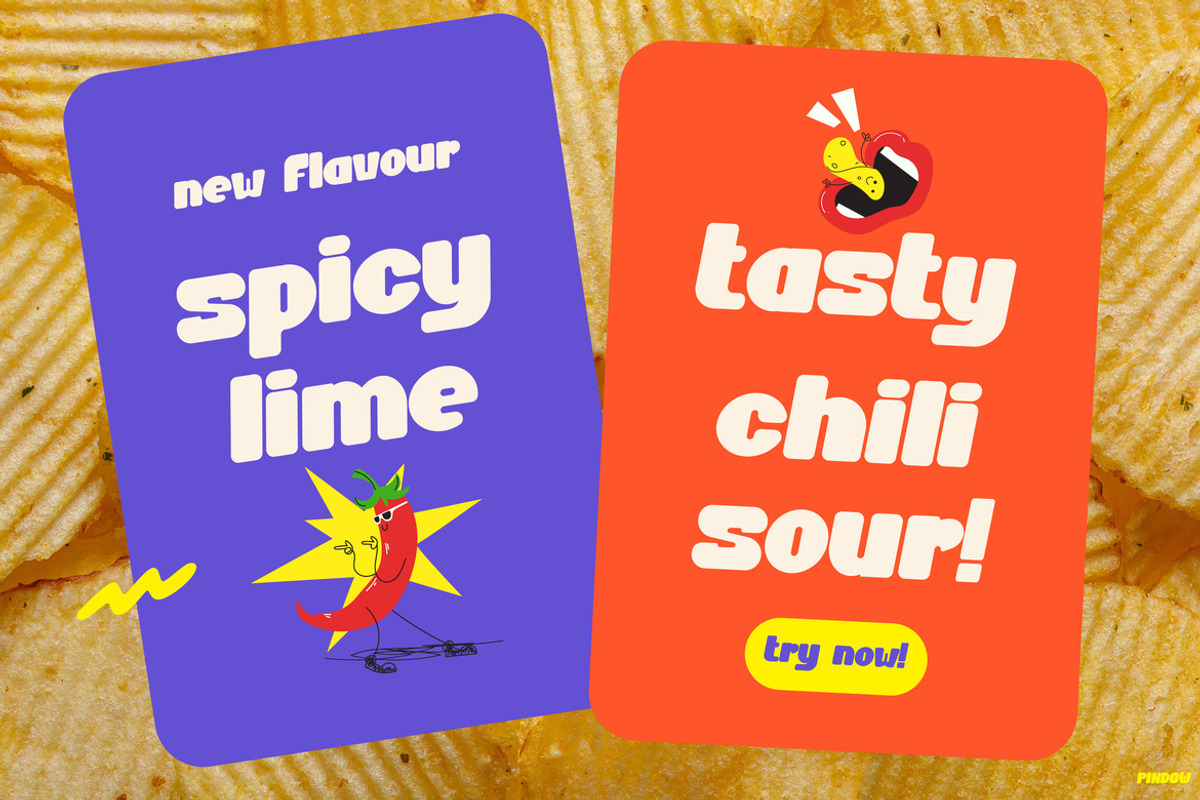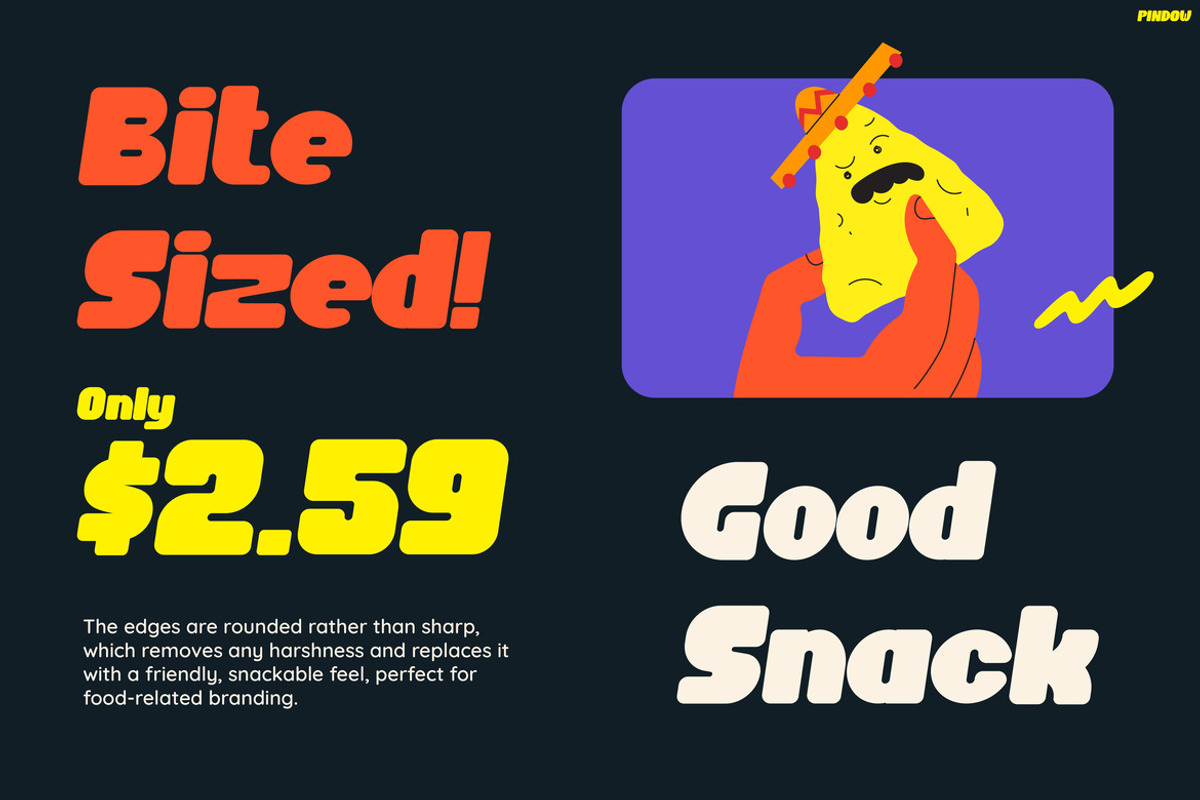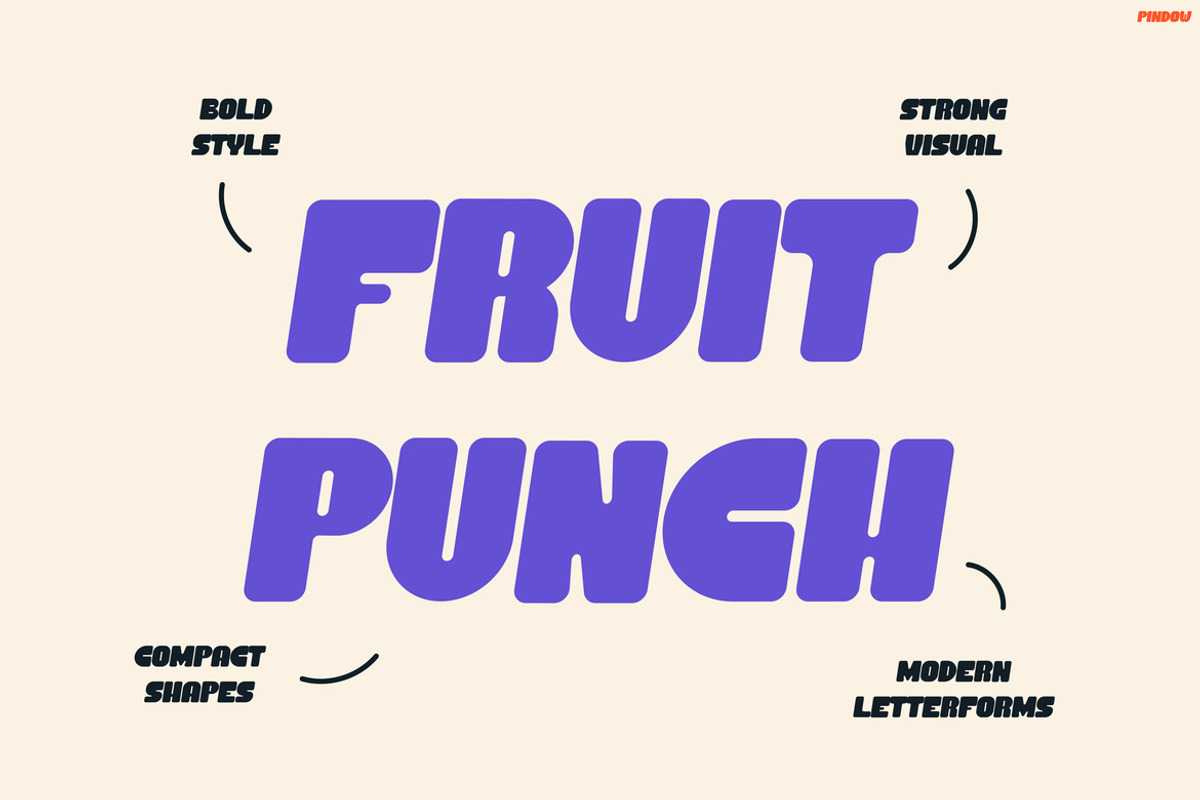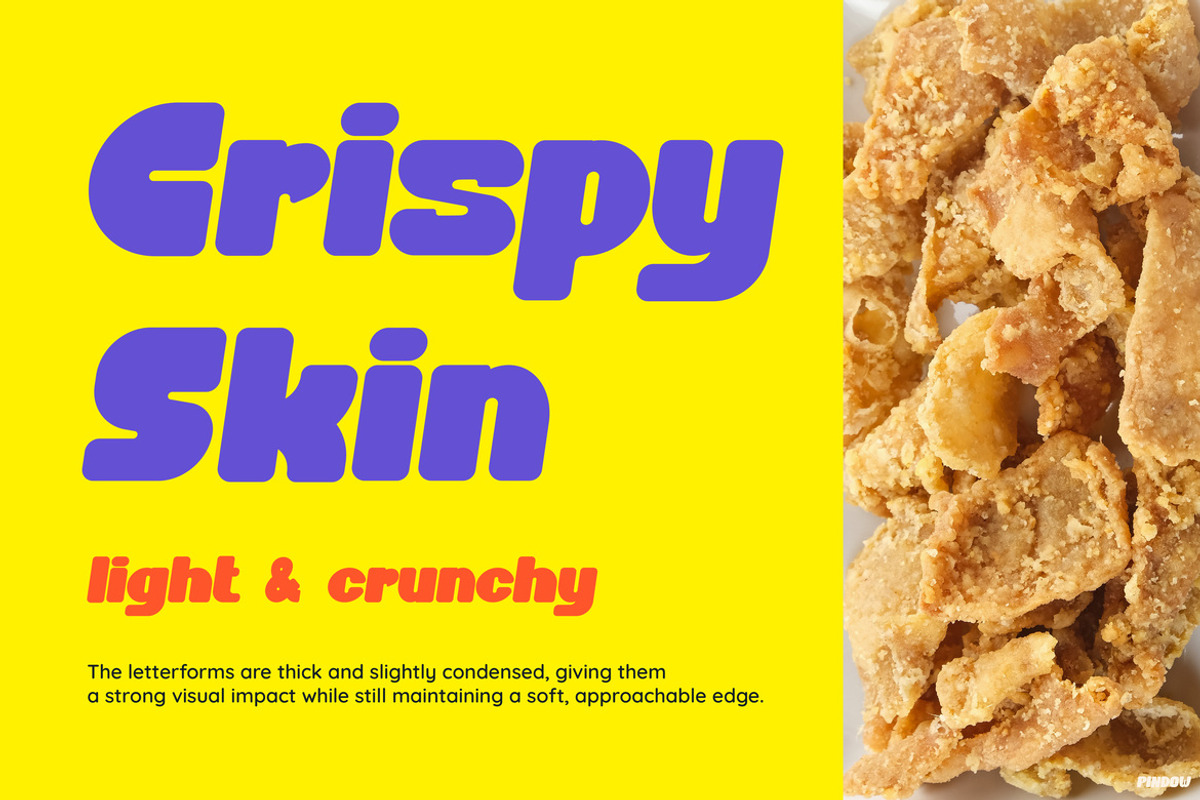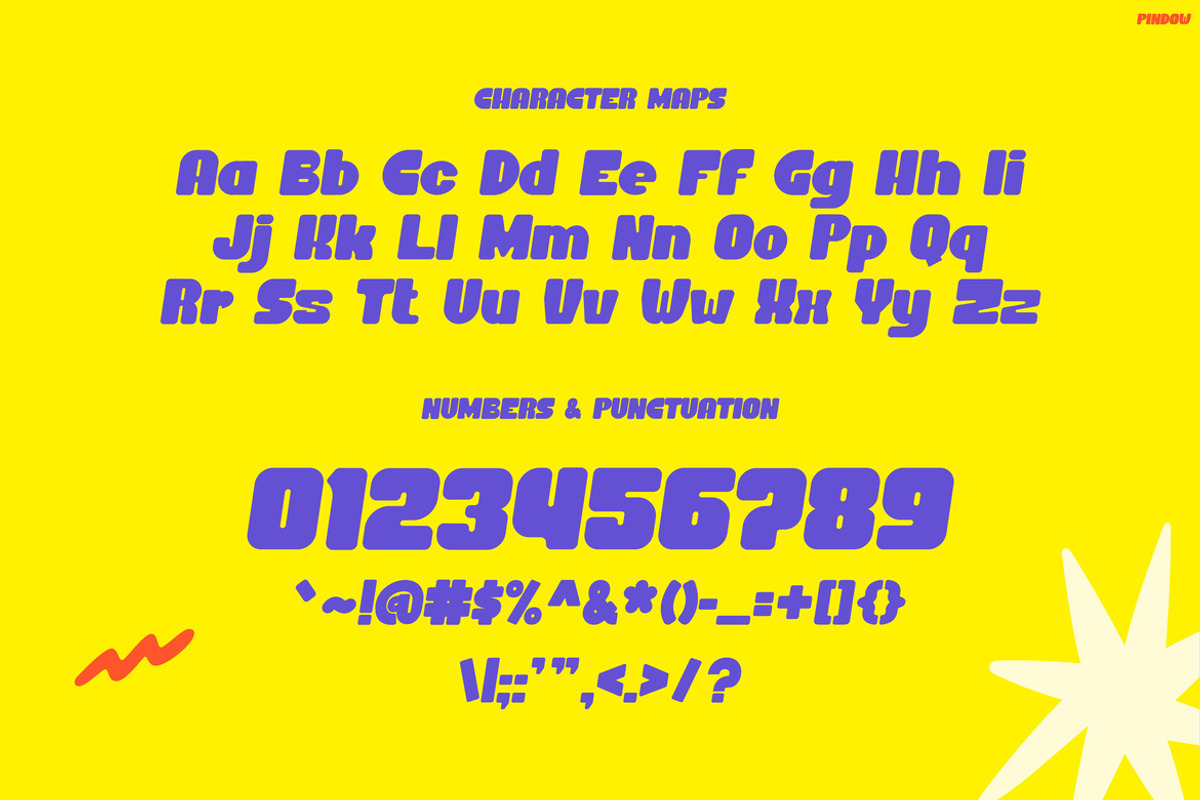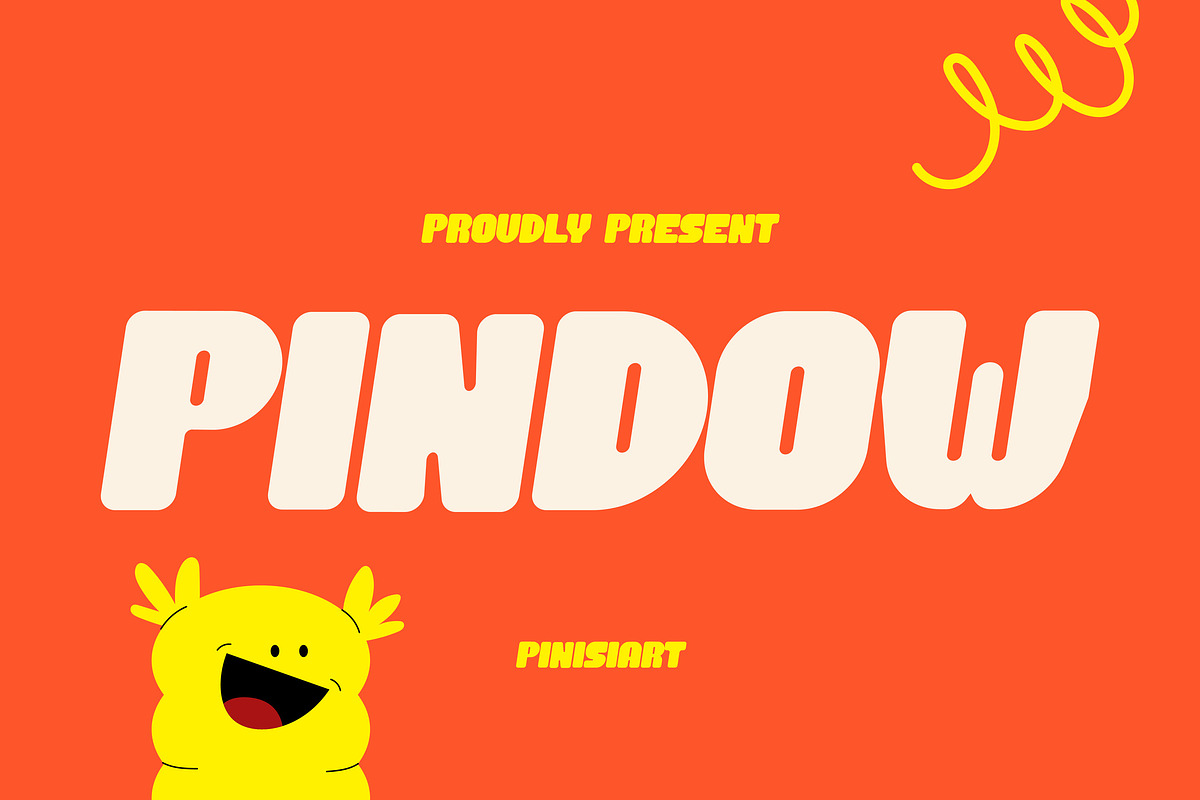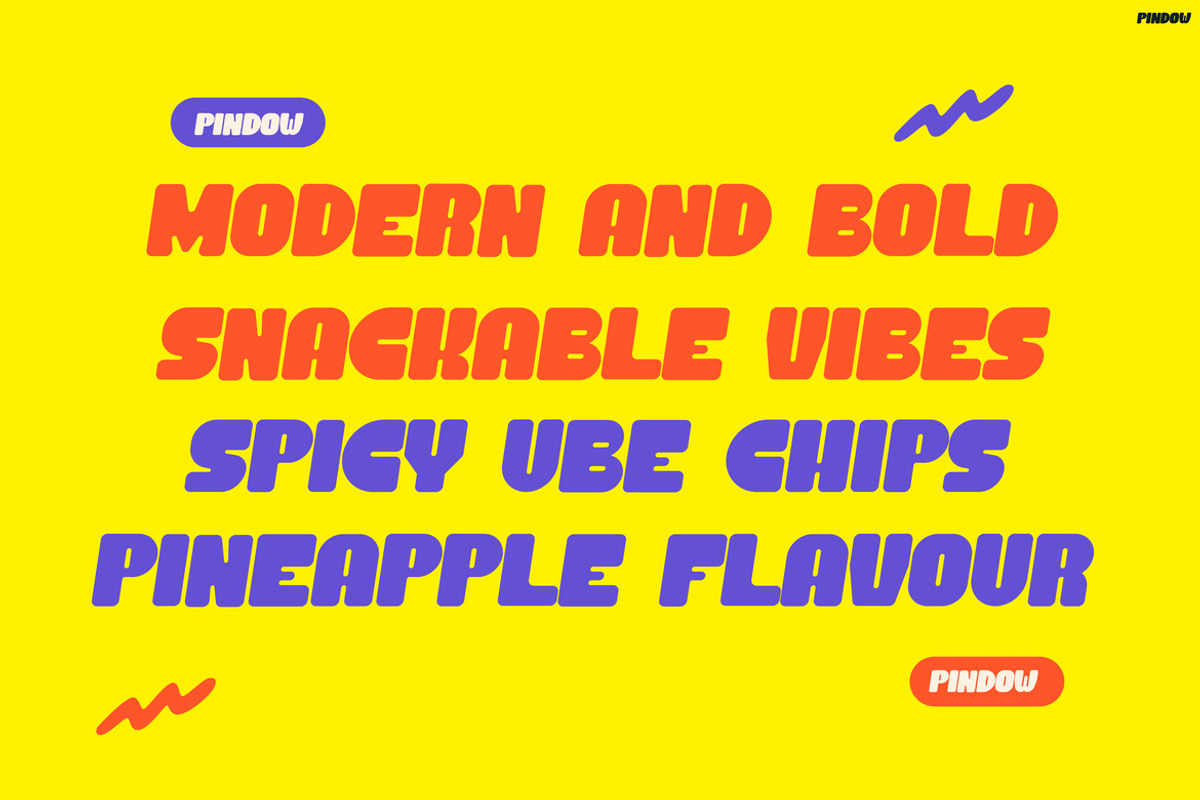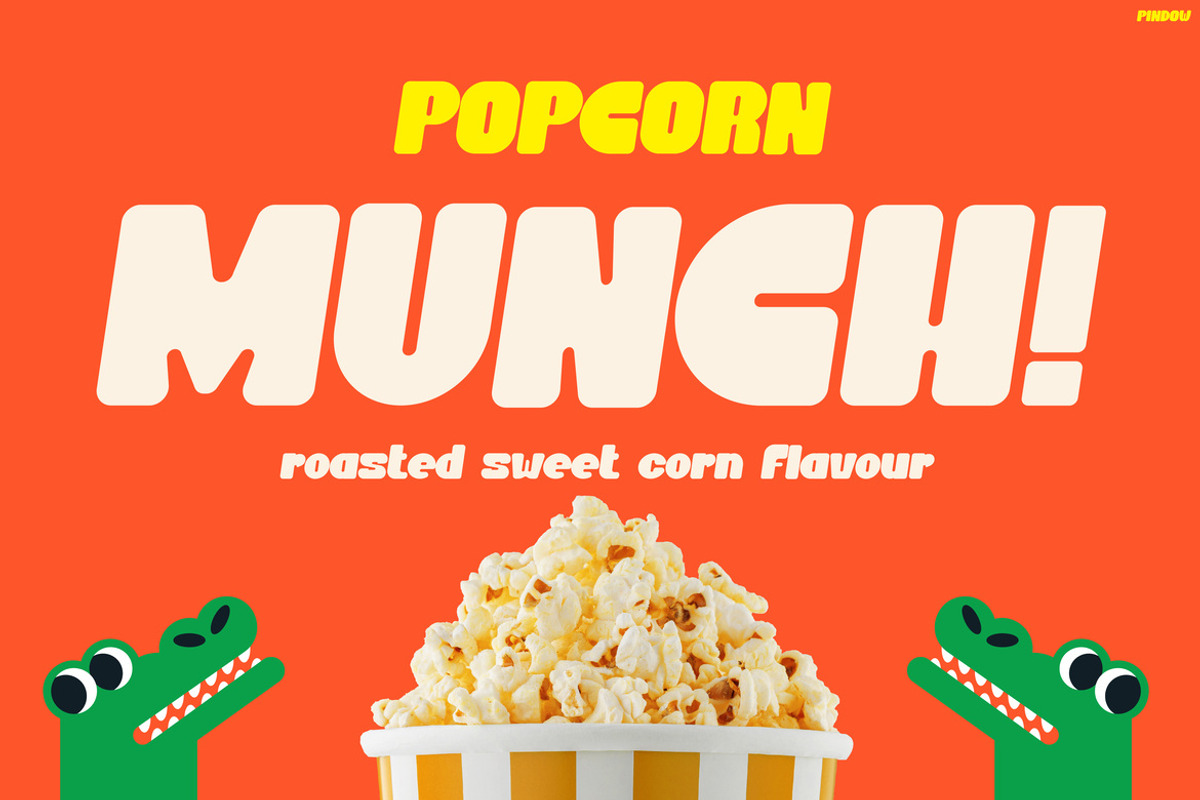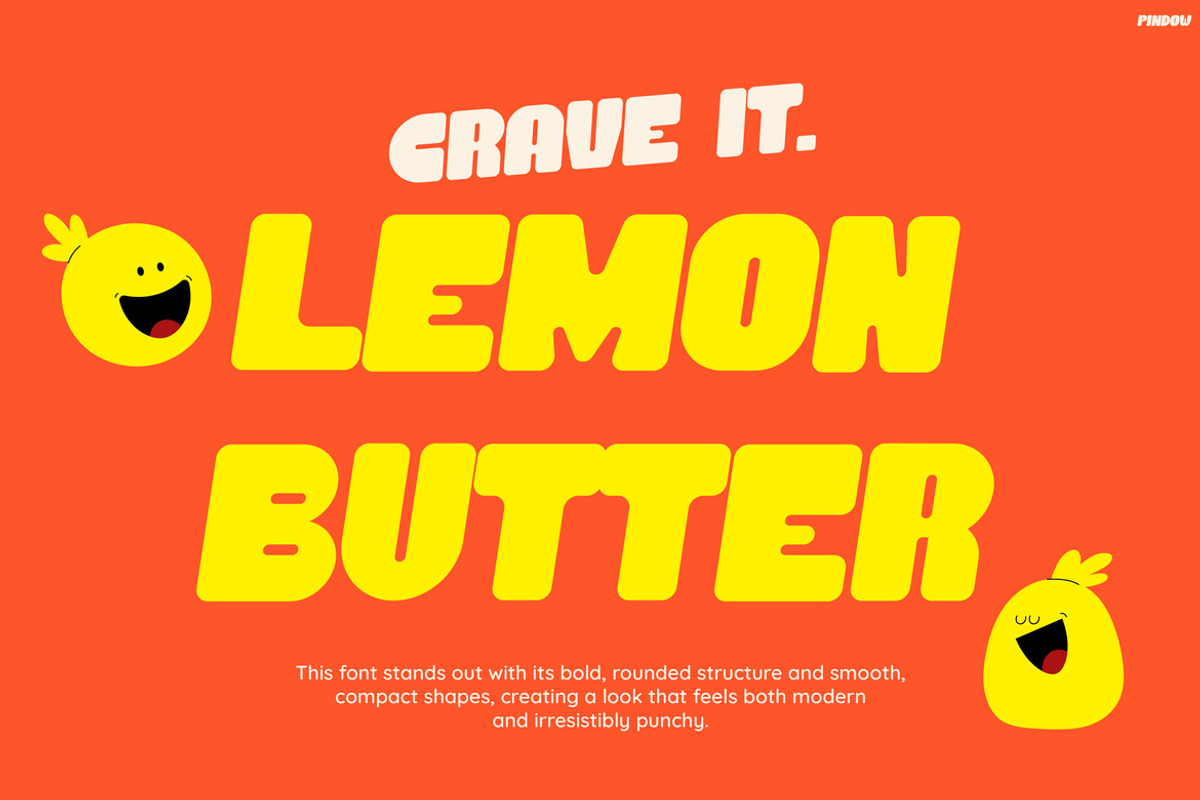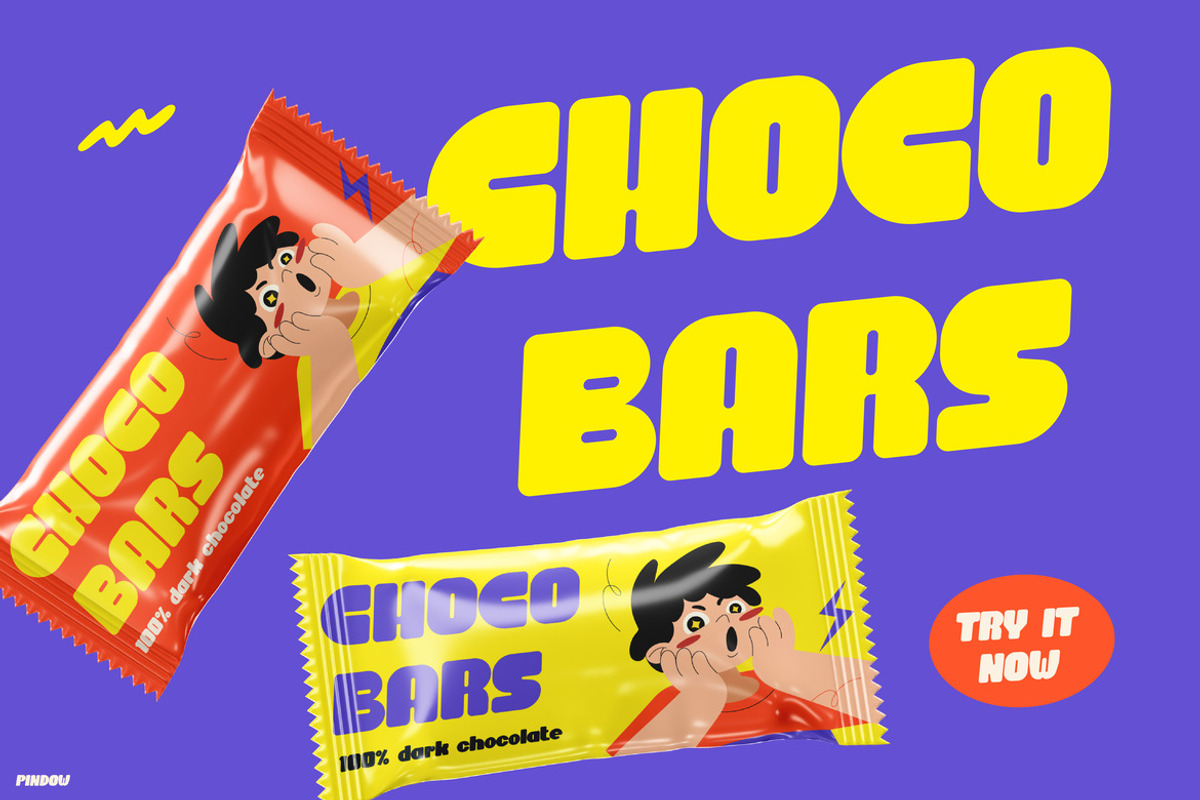
Pindow
Pindow – Playful Bold Kids Font with Snackable Vibes
Kids Font Pindow is a vibrant, chunky display typeface that instantly grabs attention with its bold curves and soft edges. At first glance, it radiates fun and energy; therefore, it feels highly engaging and memorable. Moreover, its rounded and bouncy letterforms create a friendly, approachable aesthetic that appeals to all ages. In addition, the thick weight ensures strong readability, even in busy or colorful layouts. Not only that, but the lively visual style also enhances emotional impact, making designs feel more dynamic. As a result, Kids Font Pindow becomes more than just a font—it becomes a powerful visual tool for storytelling.
Pindow is carefully crafted to emphasize fun, clarity, and personality. Furthermore, each character is designed with playful proportions, so it feels alive and expressive in every composition. Because of this, the font performs exceptionally well in headlines, posters, and packaging designs. In addition, it pairs beautifully with bright colors, although it also works in minimalist layouts. Meanwhile, its bold structure maintains legibility across both print and digital media. Consequently, designers can rely on this font to deliver both style and function without compromise.